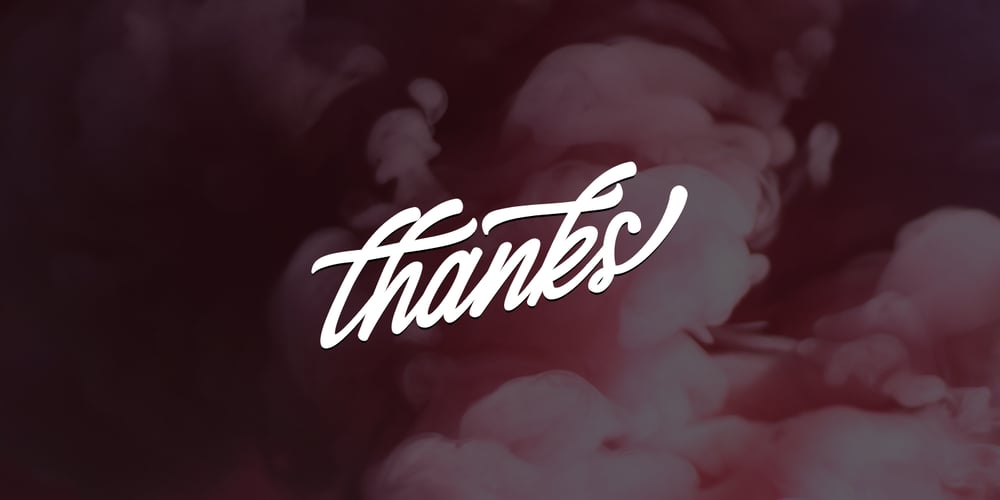
Alaysa
Alaysa font
Alaysa Font Family was designed by Ayah Phoen and published by Axara Creative. Alaysa contains 1 styles and family package options. Alaysa Script is retro signage font, bold and clean. There are so many variations on each character. Include OpenType stylistic alternates. You are able to create so many different typographical layouts easily and quickly. Make sure you use OpenType savvy program and simply open Glyph Palette to access all of the glyphs. This font is suitable for t-shirts, signage, logos, headlines, branding, packaging, etc. Accessible in the Adobe Illustrator, Adobe Photoshop, Adobe InDesign, even work on Microsoft Word. PUA Encoded Characters – Fully accessible without additional design software.